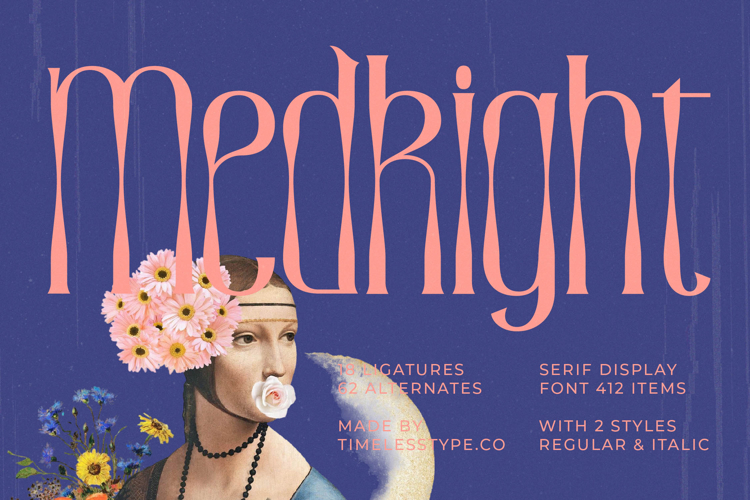
Medkight - Serif Display Font
Unlock unparalleled elegance and distinction with Font Medkight - Serif Display Font Serif Display, a typeface meticulously crafted to command attention. This high-contrast serif display font boasts a captivating blend of classic sophistication and contemporary artistry, featuring refined curves and graceful serifs that exude a unique character. Its assertive yet delicate forms make it the ideal choice for projects demanding visual splendor and a truly memorable aesthetic.
Experience limitless creative freedom with Font Medkight - Serif Display Font Serif Display's comprehensive toolkit. Offering both Regular and Italic styles, alongside 18 ligatures and 62 alternates, this font provides extensive customization options. With its extensive multilingual support, Font Medkight - Serif Display Font Serif Display adapts seamlessly across global markets, making it incredibly versatile for international projects and ensuring your message resonates universally.